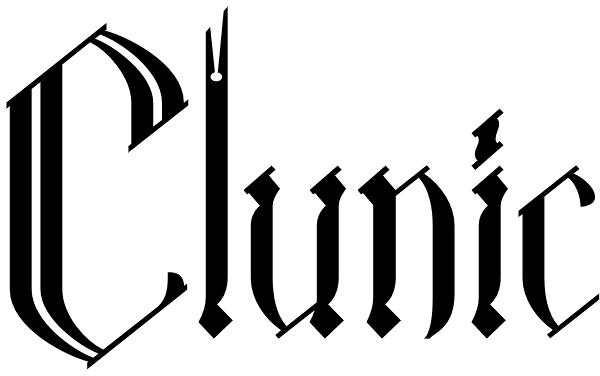
Clunic
Clunic is a Blackletter font in the best traditions of Victorian Gothic revival—that is to say aesthetically marvelous but no historical basis whatsoever. The design combines the perpendicular character of medieval manuscripts with modern...